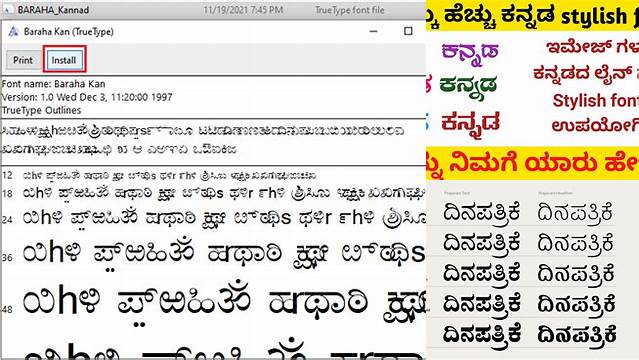
Kannada Fonts: Styles, Usage, And Tips
Are you looking to explore the world of Kannada fonts? Well, you've come to the right place! This article dives deep into the diverse and beautiful landscape of Kannada typography. We'll cover everything from classic styles to modern designs, providing you with a solid understanding of how to choose and use Kannada fonts effectively. Whether you're a designer, a student, or simply someone interested in Kannada script, this guide is designed to be your go-to resource.
Understanding Kannada Script and Its Importance
Before we delve into the specifics of Kannada fonts, let's take a moment to appreciate the script itself. The Kannada script, derived from the Brahmi script, is used to write the Kannada language, primarily spoken in the state of Karnataka, India. It's a beautiful and intricate script, characterized by its rounded forms and flowing lines. Understanding the nuances of the script is crucial for appreciating the design of its fonts.
The importance of Kannada script extends beyond mere communication. It's a vital part of Kannada culture and identity. Preserving and promoting the script through well-designed fonts is essential for maintaining its relevance in the digital age. High-quality fonts ensure readability and aesthetic appeal, encouraging the use of Kannada in various media, from books and newspapers to websites and mobile applications. The availability of diverse font styles also allows for creative expression and the adaptation of the script to different contexts.
The evolution of Kannada fonts mirrors the technological advancements in printing and digital media. Early Kannada printing relied on manually crafted typefaces, which were laborious and time-consuming to produce. With the advent of digital typography, the creation and distribution of Kannada fonts became significantly easier. Today, a wide range of Kannada fonts are available, catering to different needs and preferences. From traditional serifs that evoke a sense of history to modern sans-serifs that offer a clean and contemporary look, the options are vast.
The challenge in designing Kannada fonts lies in balancing readability with aesthetic appeal. The complex structure of the script requires careful attention to detail to ensure that each character is clear and distinguishable, even at smaller sizes. Font designers must also consider the overall harmony and rhythm of the typeface, ensuring that the letters flow seamlessly together to create a visually pleasing reading experience. This requires a deep understanding of the Kannada script, its historical context, and the principles of typography.
Exploring Different Styles of Kannada Fonts
Now, let's get into the exciting part: exploring the different styles of Kannada fonts! Just like with any other language, Kannada offers a variety of font styles, each with its own unique characteristics and applications. Here are some of the most popular categories:
Serif fonts are characterized by the small decorative strokes (serifs) at the end of each character. In Kannada, serif fonts often convey a sense of tradition, formality, and elegance. They are commonly used in books, newspapers, and other print media where readability is paramount. Some popular Kannada serif fonts include:
- Tunga: A classic Kannada serif font known for its legibility and balanced design. It's a versatile choice for a wide range of applications.
- Kalyani: Another well-established serif font with a slightly more ornate design. It's often used in headings and titles to add a touch of sophistication.
- Nudi: A widely used font known for its clear and readable design, available under open source licenses.
The serifs in Kannada fonts contribute to the overall aesthetic appeal and can also aid in readability by guiding the eye along the line of text. However, it's important to choose a serif font that is well-designed and optimized for the Kannada script. Poorly designed serifs can clutter the characters and make them difficult to read, especially at smaller sizes. Therefore, designers must carefully consider the weight, size, and spacing of the serifs to ensure optimal readability.
Furthermore, the choice of serif font should be aligned with the overall tone and style of the design. Traditional and formal designs often benefit from the use of classic serif fonts, while more modern and contemporary designs may opt for sans-serif fonts or stylized serif fonts. Understanding the nuances of different serif styles and their impact on the overall design is crucial for creating visually appealing and effective Kannada typography.
Sans-serif fonts, as the name suggests, lack the serifs found in serif fonts. They typically have a cleaner, more modern appearance. Kannada sans-serif fonts are often used in websites, mobile apps, and other digital media where a contemporary look is desired. Some popular Kannada sans-serif fonts include:
- Lohit Kannada: A popular open-source sans-serif font known for its clean lines and excellent readability on screens.
- Kedage: A modern sans-serif font with a geometric design. It's a great choice for headlines and display text.
Kannada fonts are a vital part of preserving and promoting the Kannada language and culture. By understanding the different styles of Kannada fonts and how to use them effectively, you can create visually appealing and impactful designs. So go ahead, explore the world of Kannada typography and unleash your creativity!